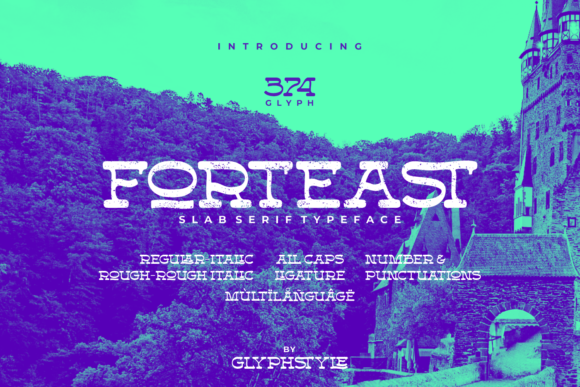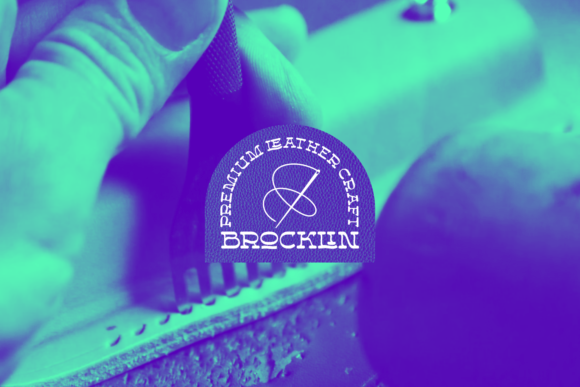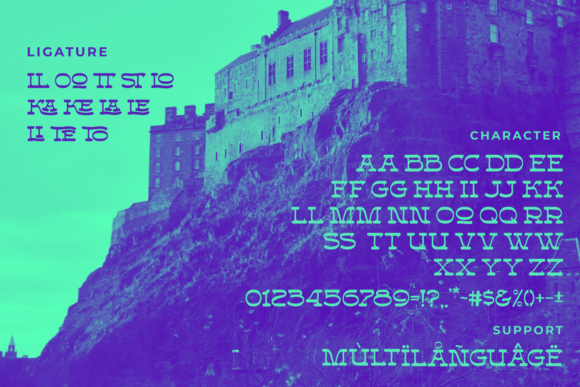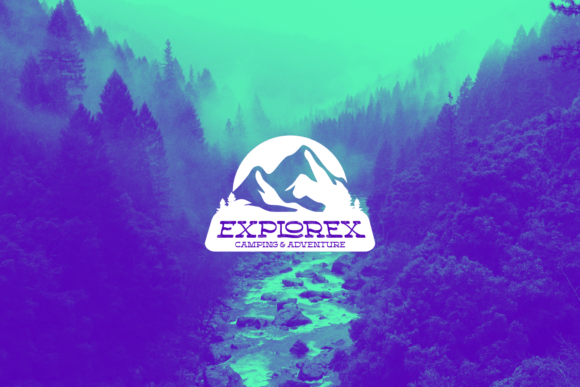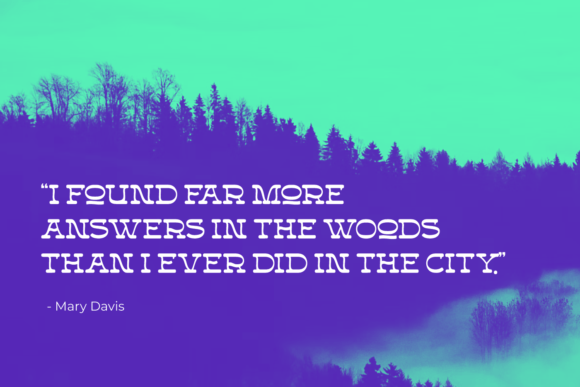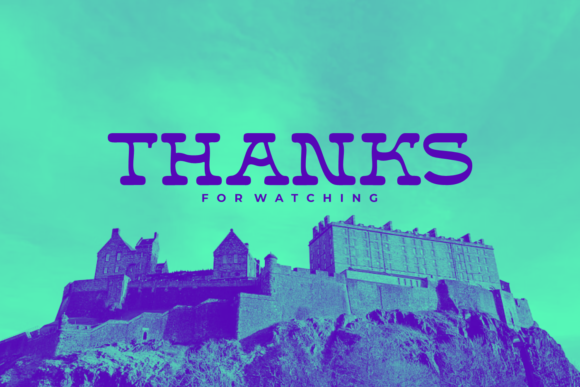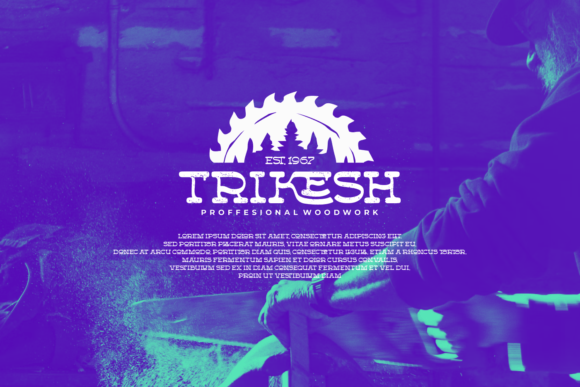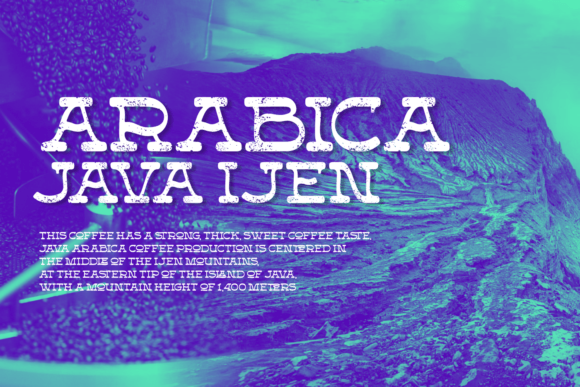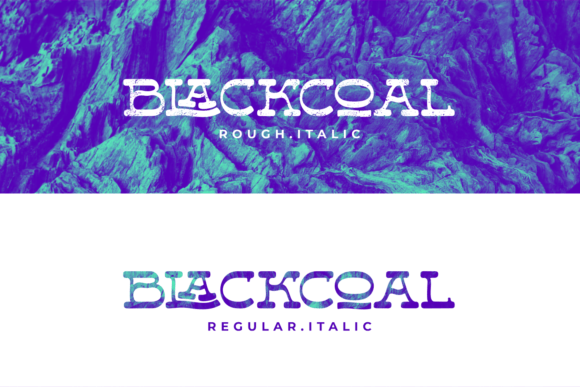
Forteast
Forteast: A Stylish and Smooth Slab Serif Font
Forteast is a stylish slab serif font featuring smooth curves and fashionable character. This PUA-encoded typeface is perfect for various creative applications, from branding projects to invitations.
Key Features of Forteast
• Stylish Design: Offers smooth, curved letterforms.
• PUA Encoded: Provides easy access to all glyphs and ligatures[2][4].
• Fashionable Appeal: Brings sophisticated style to designs.
• Versatile Application: Adapts well to numerous design contexts.
Best Uses for Forteast
Thanks to its versatile characteristics, Forteast works especially well for:
When using Forteast in your designs, keep these tips in mind:
• Access special characters easily through PUA encoding[2].
• Use its smooth curves for elegant designs.
• Let its stylish character enhance fashionable projects.
• Take advantage of ligatures for sophisticated typography[4].
To sum up, Forteast is an excellent choice for designers seeking a stylish and smooth slab serif font. Its versatility makes it perfect for various creative projects. Whether you’re creating branding materials, designing wedding invitations, or developing product packaging, Forteast offers the perfect blend of style and sophistication.
Furthermore, Forteast’s distinctive design allows it to shine in contexts where both elegance and functionality are key. From social media posts to photography watermarks, this font can elevate your projects with its fashionable style. Also, its PUA encoding ensures easy access to all special characters and ligatures[2][4].
In conclusion, Forteast truly captures the essence of stylish design in slab serif typography. Its versatility across different applications shows how well it can serve various creative needs. Therefore, for those wanting to add a touch of fashionable sophistication to their work, Forteast can enhance any design with its distinctive style. Ultimately, it’s perfect for designers aiming to make a stylish, smooth impact across creative projects.